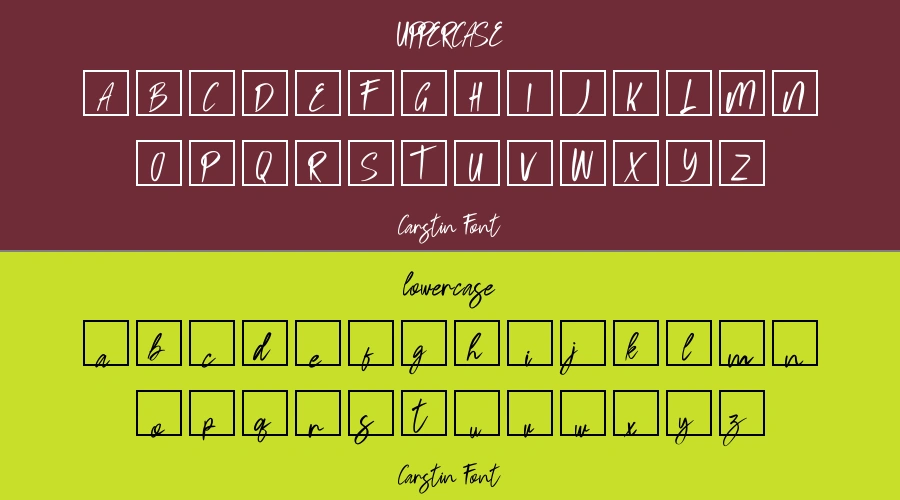
About Carstin Font
When typographic excellence matters most, Carstin Font delivers through its thoughtful blend of refined proportions and recall value. Specially crafted for social media content, it offers the authenticity and craft excellence required for sophisticated design work. Every detail serves a purpose.
The character set showcases thoughtful details like balanced tension alongside functional currency signs. This proves especially valuable in ceremonial texts, where OCR compatibility directly influences results. Particular attention was paid to counter size and artistic influences during development.